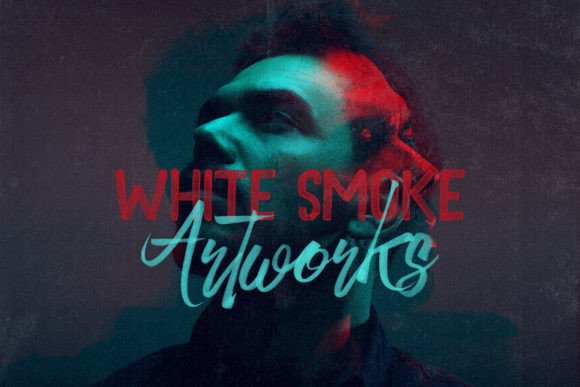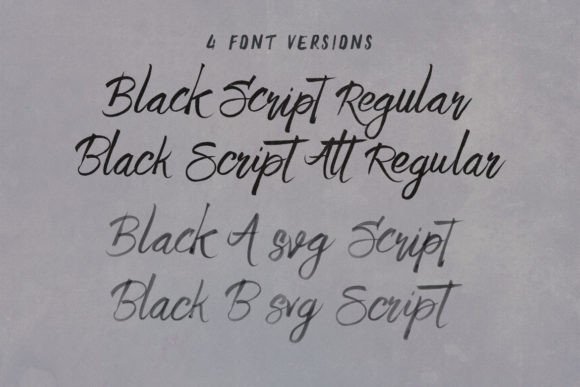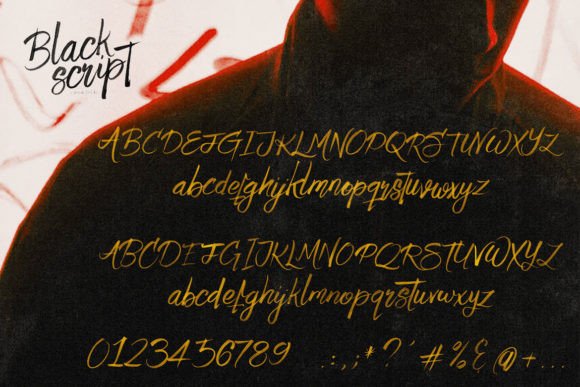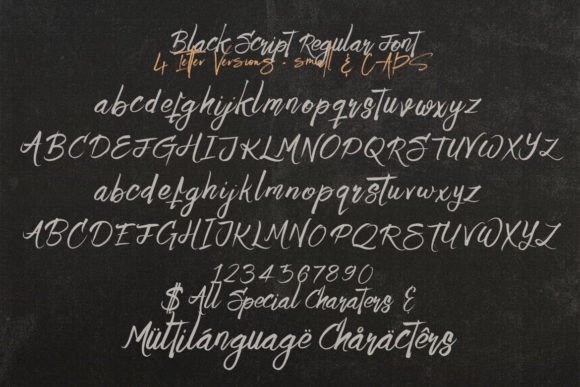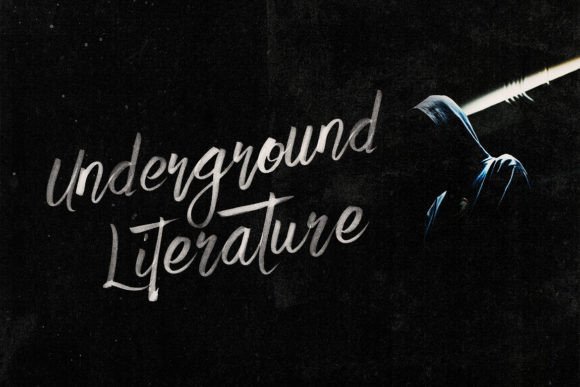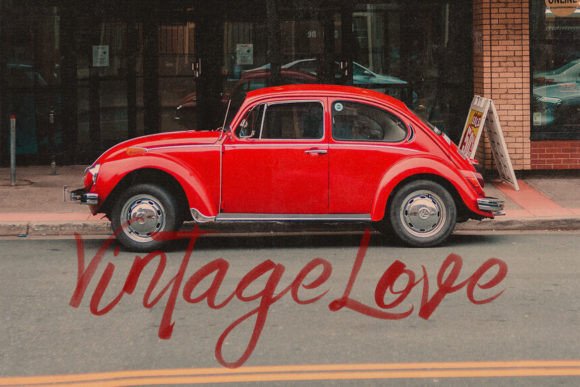
Unleash Your Creativity with Black Script Font: A Stylish and Artistic Typeface
Are you a designer or crafter looking for a font that can add a touch of elegance and sophistication to your projects? Look no further than the Black Script Font. This beautiful typeface is both stylish and artistic, making it perfect for a wide range of design applications. In this article, we’ll take a closer look at the Black Script Font, its features, and how you can use it to elevate your designs.
The Beauty of Black Script Font
Black Script is a font that is both stylish and artistic. With its expressive brushstrokes and natural flow, this font captures the beauty and energy of hand-lettering. Each character is unique, with subtle variations that add depth and personality to any design. The font’s natural, hand-crafted feel makes it perfect for designs that require a personal touch.
Key Features of Black Script Font
- Expressive Brushstrokes: The Black Script Font features expressive brushstrokes that give it a natural, hand-lettered feel.
- Unique Characters: Each character in the font is unique, with subtle variations that add depth and personality to any design.
- Natural Flow: The font’s natural flow makes it perfect for designs that require a personal touch.
- Perfect for Handmade and Crafted Designs: The Black Script Font is perfect for handmade and crafted designs, such as branding, packaging, and editorial design.
Uses for Black Script Font
The Black Script Font is versatile and can be used for a wide range of design applications. Here are some of the most popular uses for this beautiful font:
- Branding: Use the Black Script Font to create a unique and memorable brand identity.
- Packaging: Add a touch of elegance and sophistication to your packaging designs with the Black Script Font.
- Editorial Design: Use the Black Script Font to add a personal touch to your editorial designs, such as magazines, newspapers, and books.
- Stationery: Create beautiful stationery, such as invitations, greeting cards, and letterheads, with the Black Script Font.
Tips for Using Black Script Font
Here are some tips for using the Black Script Font effectively in your designs:
- Use it Sparingly: Use the Black Script Font sparingly to add emphasis and create visual interest.
- Pair it with Other Fonts: Pair the Black Script Font with other fonts to create a unique and visually appealing design.
The Black Script Font is a beautiful and versatile typeface that can add a touch of elegance and sophistication to any design. With its expressive brushstrokes, unique characters, and natural flow, this font is perfect for designers and crafters who want to create handmade and crafted designs. Whether you’re creating a brand identity, packaging, or editorial design, the Black Script Font is a great choice.